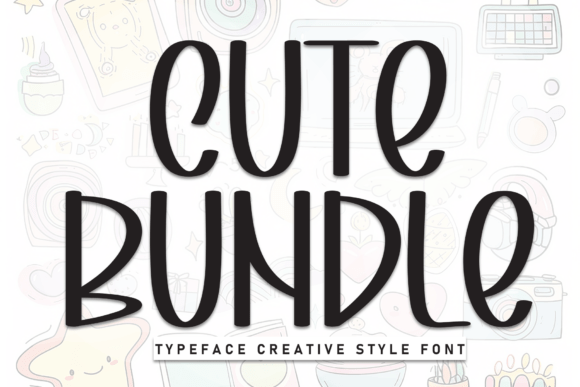
The Perfect Match for Whimsical Designs
Have you ever stared at a blank canvas, eager to create something that sparks joy and puts a smile on a child’s face? For designers, finding the right font can be the difference between a design that feels generic and one that’s truly special. That’s where the Cute Bundle Font comes in – a playful and charming typeface that’s sure to capture the hearts of your young audience.
This creative handwritten font is designed to add a touch of warmth and friendliness to any design. With its tall, rounded letterforms, the Cute Bundle Font is perfect for children’s products, stickers, stationery, and fun branding projects. Whether you’re working on a children’s book, a toy packaging design, or a kids’ app, this font is sure to bring your project to life in a way that’s both quirky and readable.
Cute Bundle Font Key Features
- Unique Characteristics: The font features a distinctive, playful design with rounded edges, soft curves, and whimsical details, making it perfect for creating a cute and endearing visual identity.
Cute Bundle Font Review
I recently had the chance to try out the Cute Bundle Font, and I wanted to share my honest thoughts with you.
- The font is incredibly cute and playful, perfect for projects that need a touch of whimsy.
- The bundle includes a wide range of styles, from bold to script, giving you plenty of options to choose from.
- The font is highly customizable, allowing you to adjust the size, color, and spacing to suit your needs.
- The font may not be the best choice for professional or corporate projects, as it can come across as too playful or childish.
- The font is not optimized for small text sizes, which can make it difficult to read in certain contexts.
- The bundle is quite large, which can make it difficult to manage and navigate.
Overall, I think the Cute Bundle Font is a great choice for projects that need a fun and playful touch. While it may have some limitations, it’s a great option for creatives who want to add some personality to their work.
Getting the Most Out of Cute Bundle Font
For best results, pair Cute Bundle Font with pastel colors and soft textures. Experiment with different font sizes and styles to create a visually appealing design.
Cute Bundle Font is ideal for:
– Children’s party invitations
– Baby shower decorations
– Handmade crafts and DIY projects